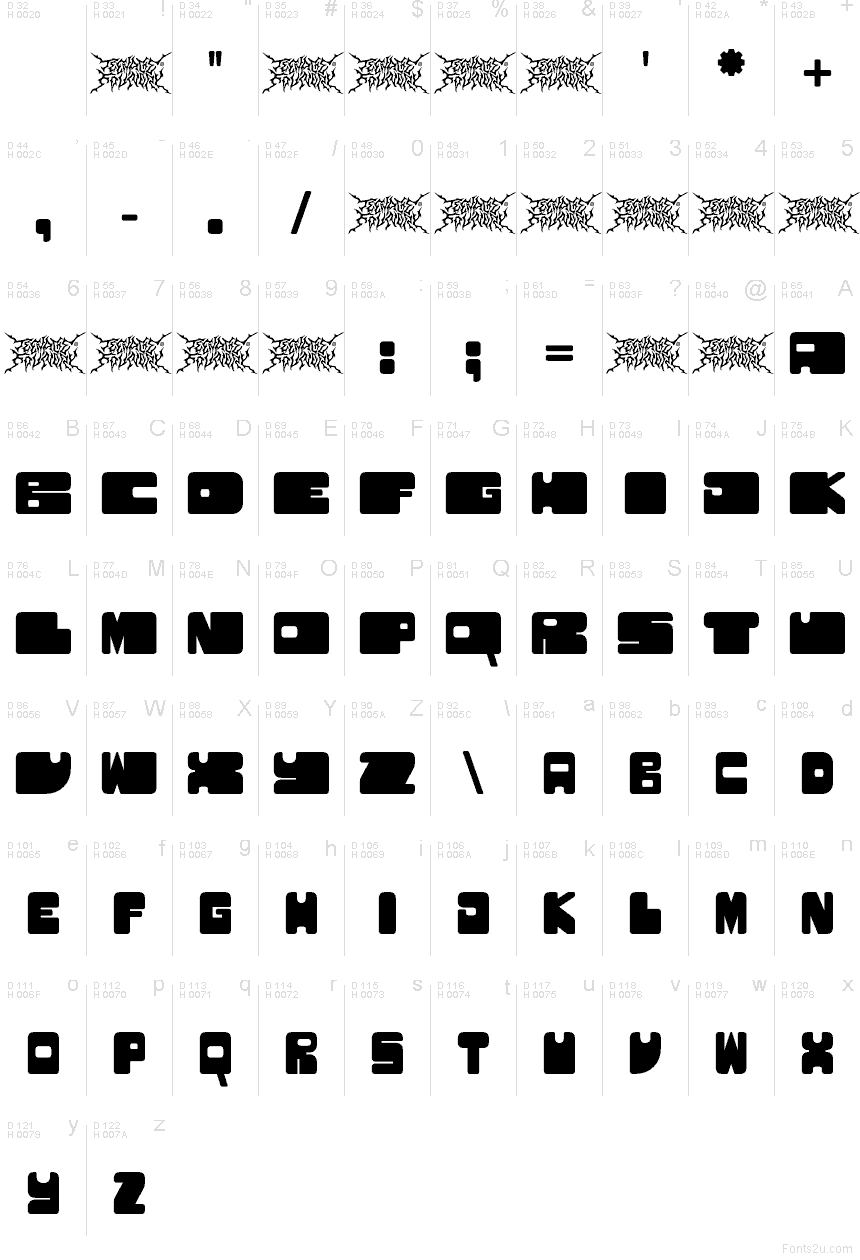
TeenageSunkies-Demo
TeenageSunkies font by Prio Nurokhim Aji of Teenage Foundry is a free modern techno font; the typeface feels like it’s been milled from a single slab of plastic—bold, rounded, and confidently blocky. Its soft corners and tight, futuristic rhythm keep the look friendly while still reading as machine-made and fast.
Using TeenageSunkies, you’ll get instant punch on gaming logos, esports banners, sci‑fi posters, tech event promos, streetwear graphics, YouTube thumbnails, album covers, and product packaging that needs a loud name. This free font shines at larger sizes with a bit of extra tracking, and it pairs cleanly with a plain neo‑grotesk sans for supporting text.